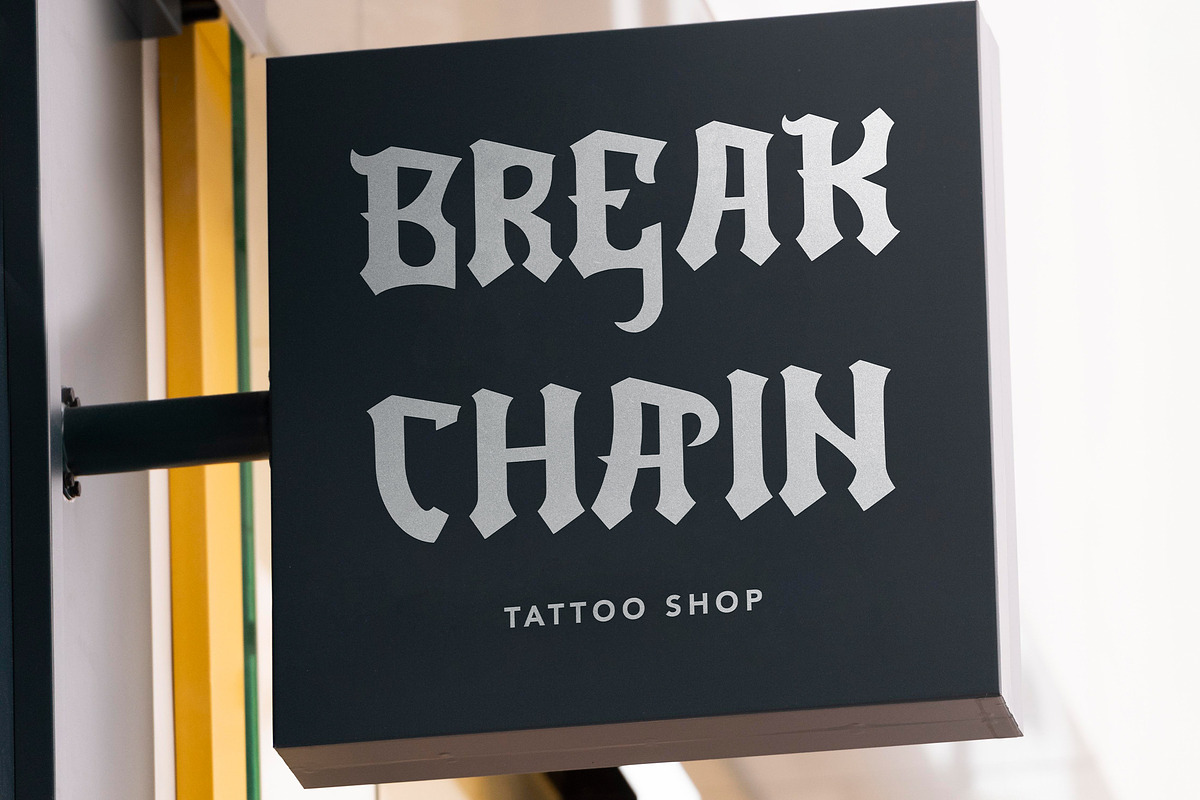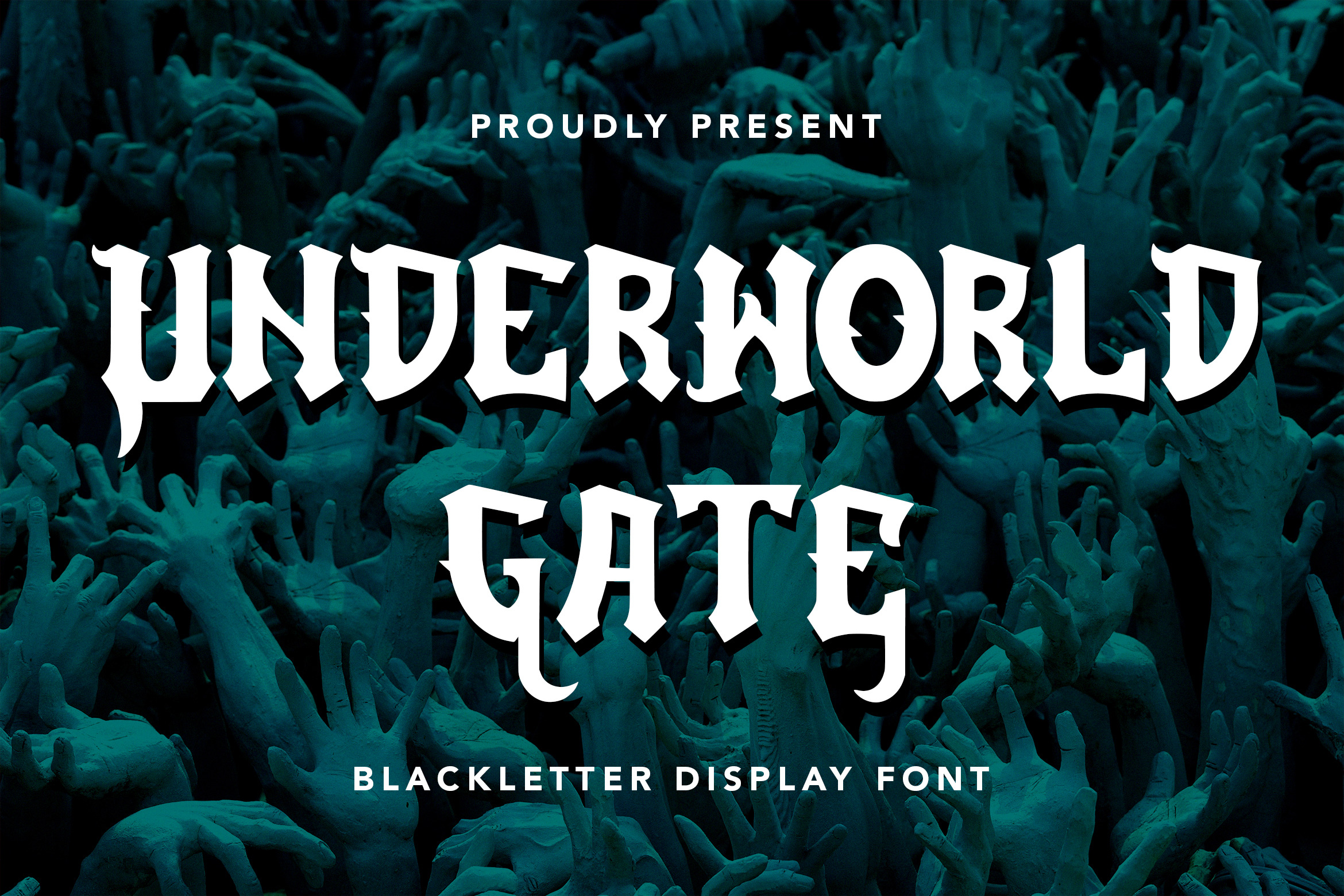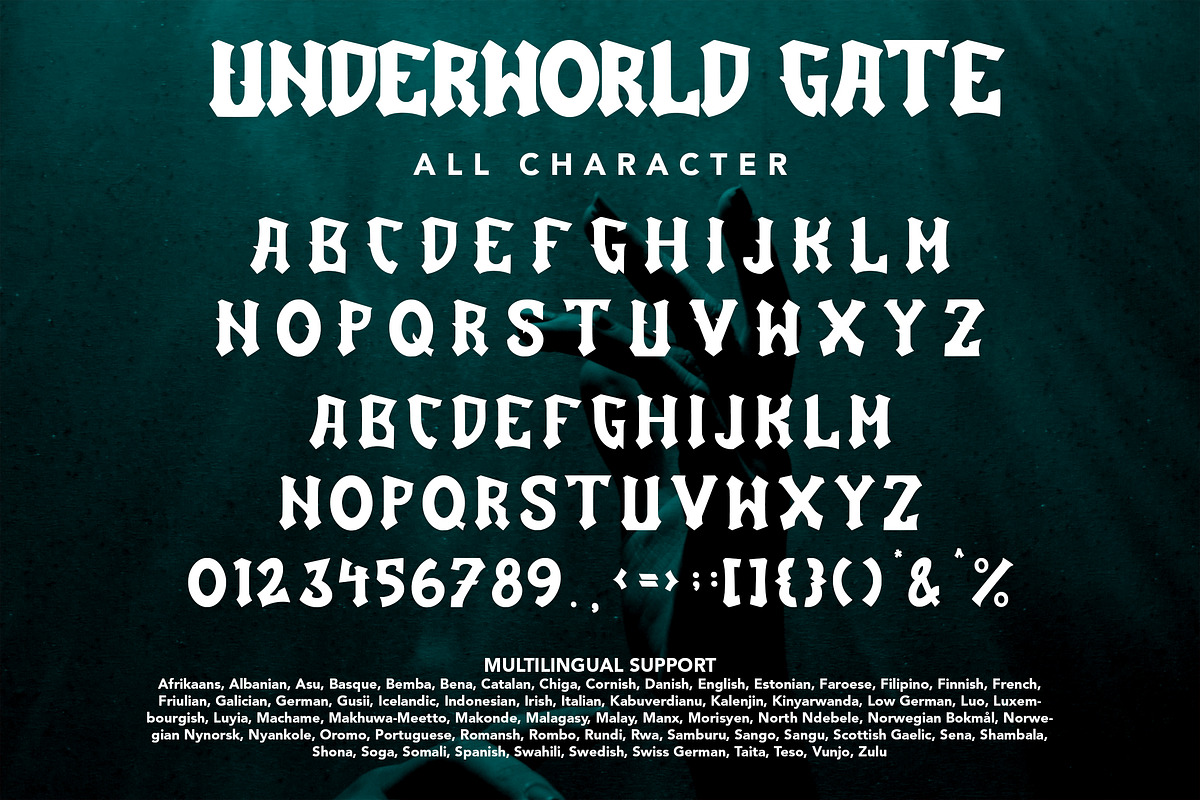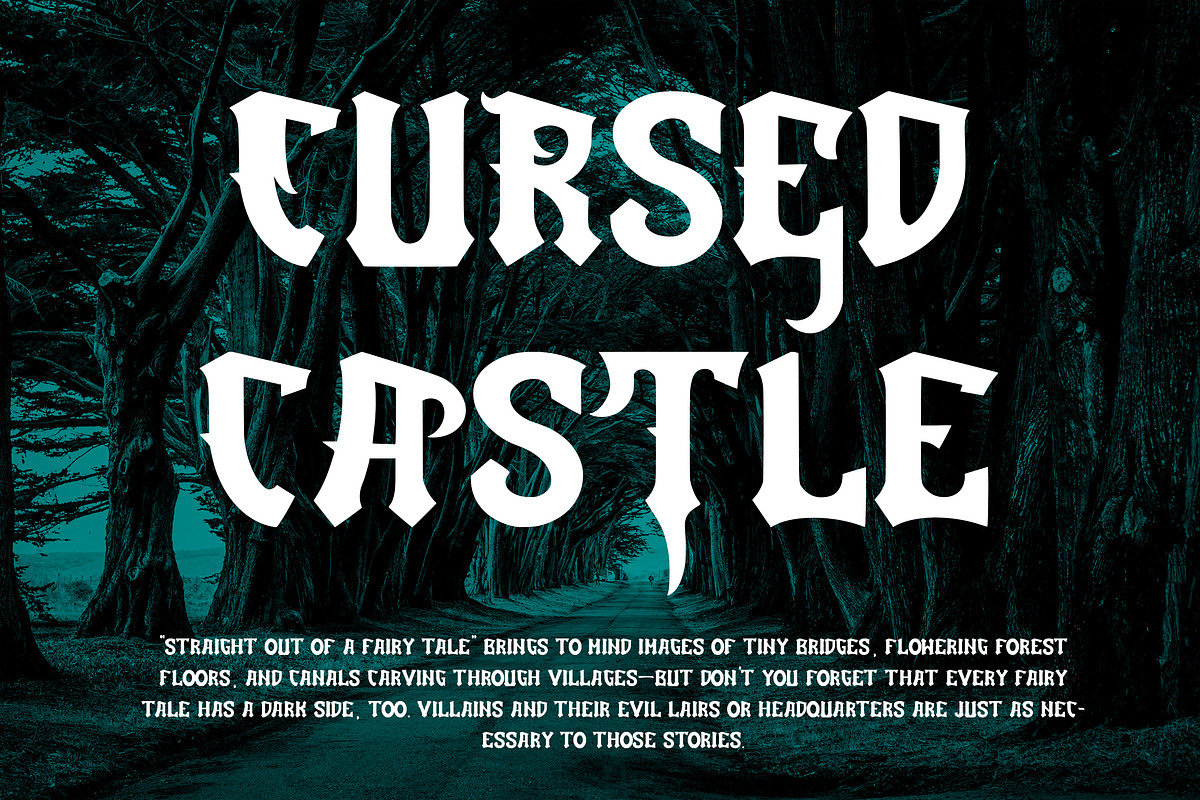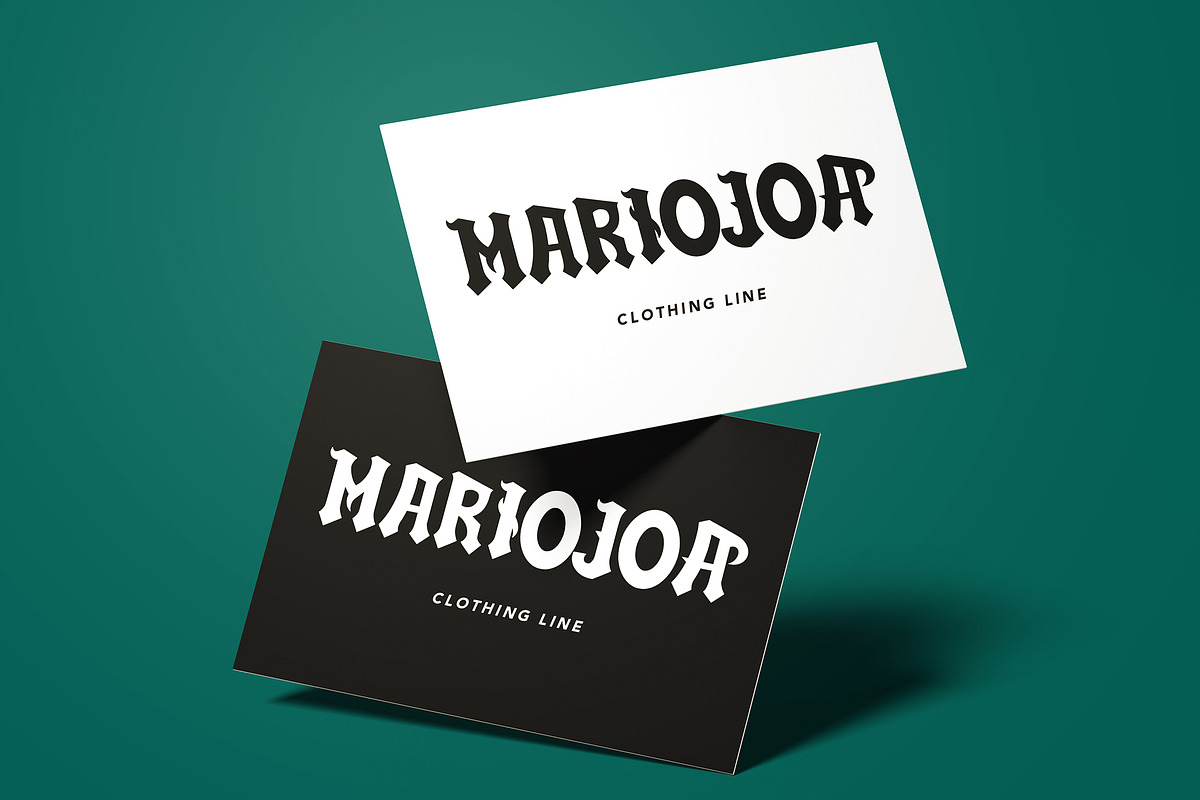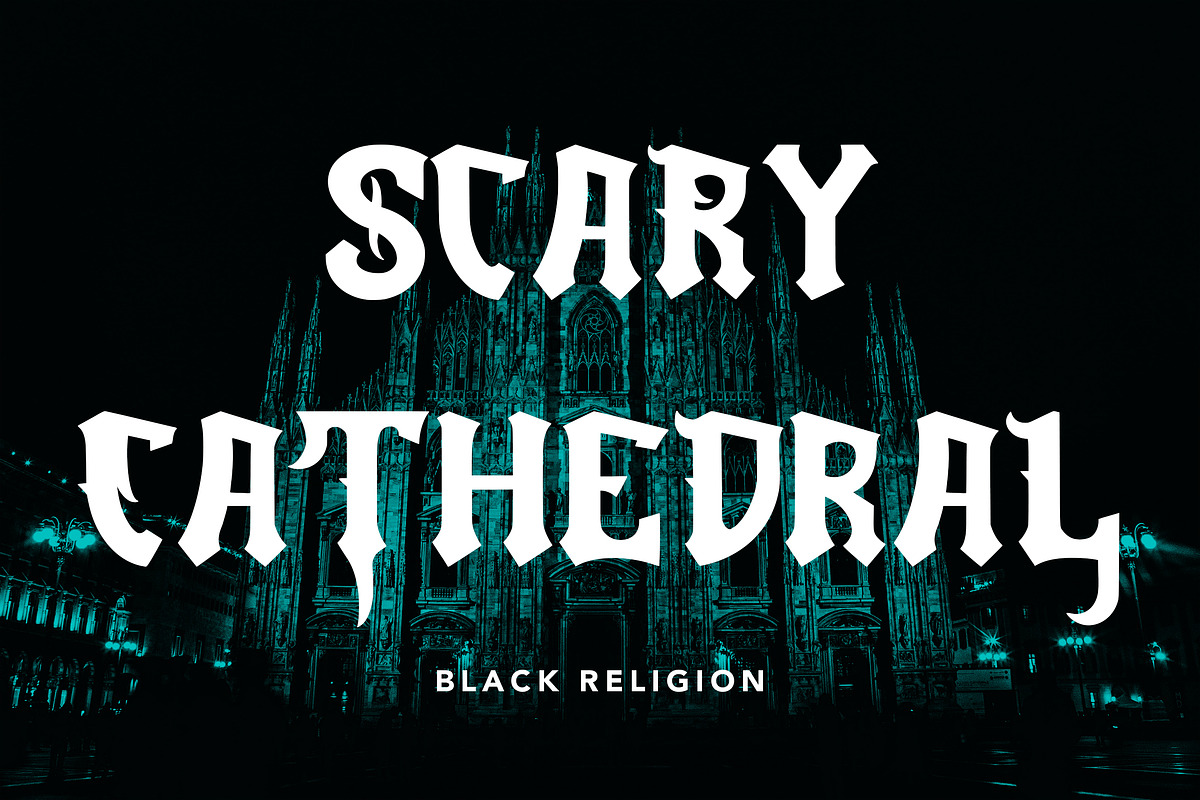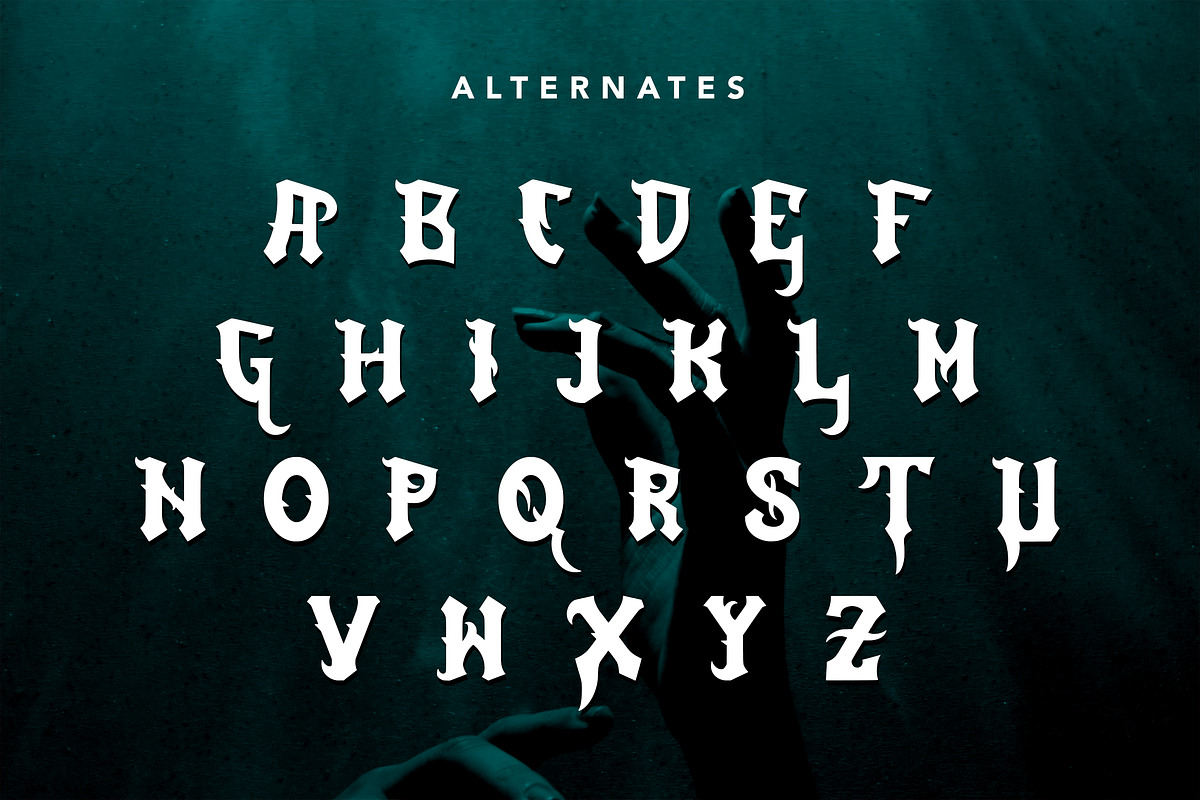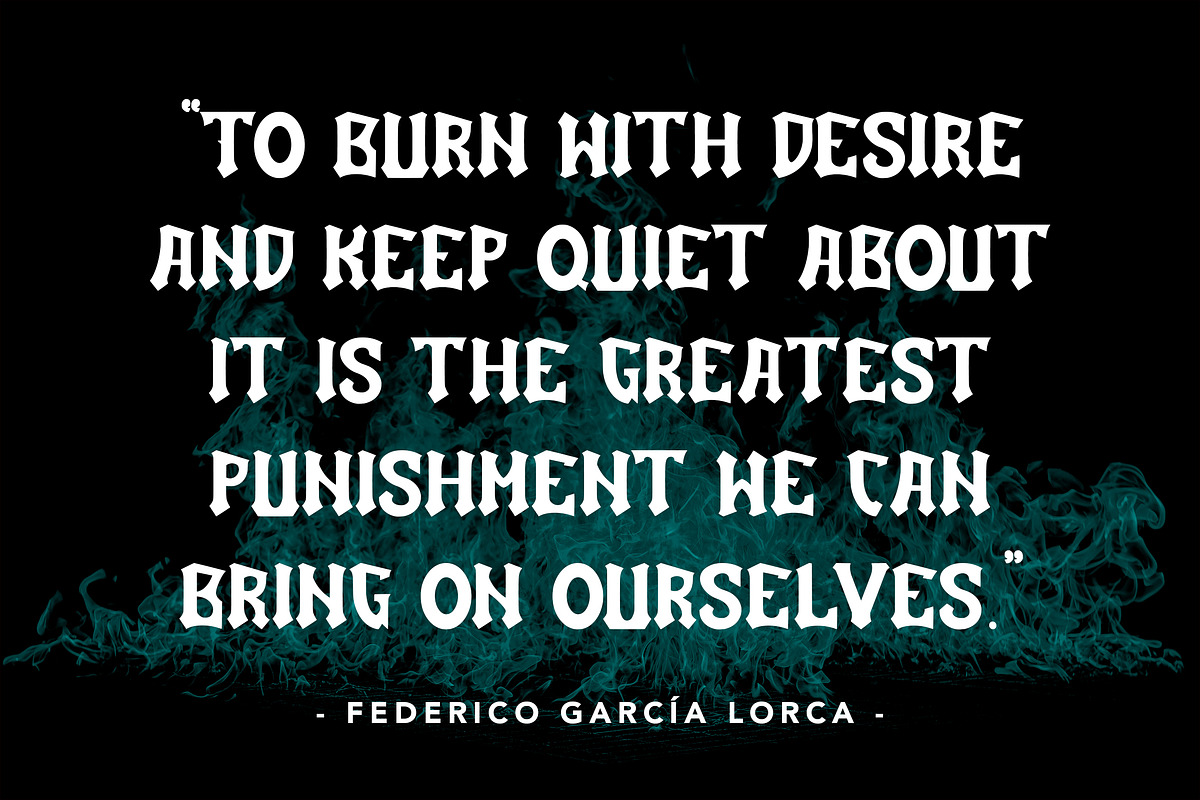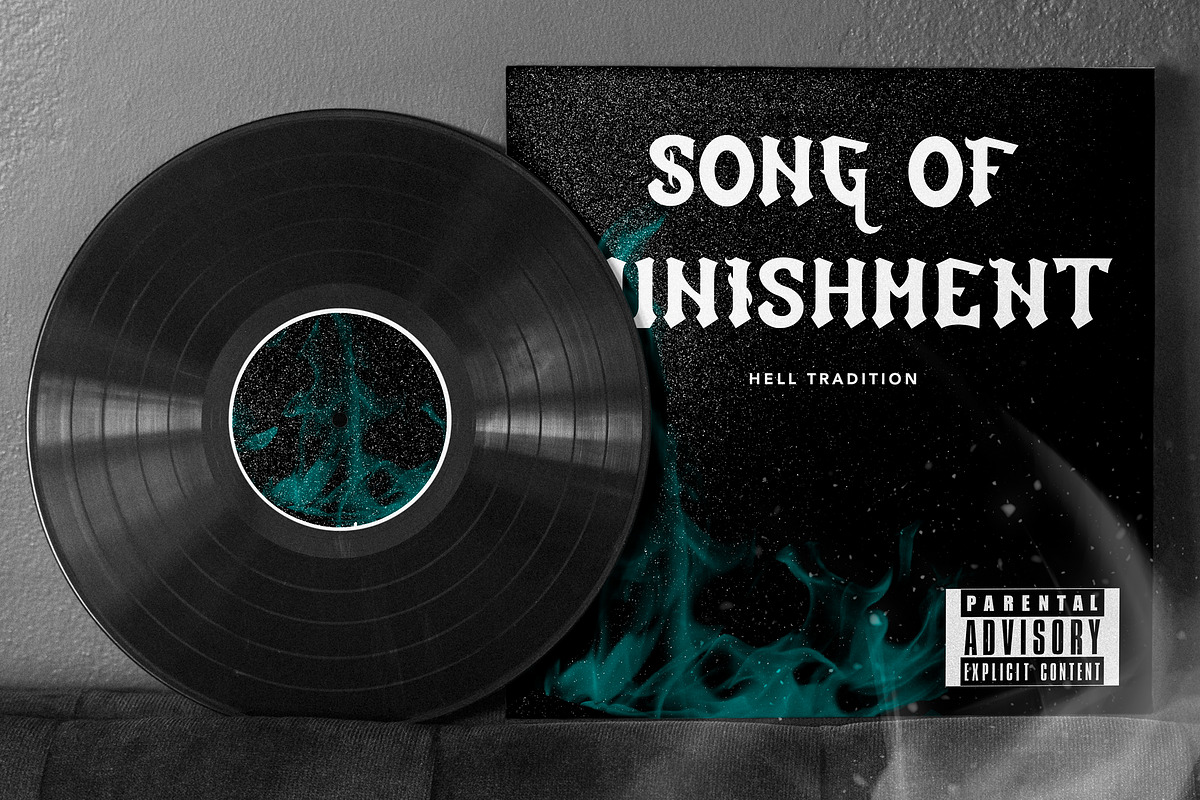
UnderworldGate - Blackletter Font
UnderworldGate - Blackletter Display Font contains a lowercase, uppercase, symbol, and also supports multi-language. There’s a lot of ligature in this font. UnderworldGate - Blackletter Display Font also comes with ligatures, stylistic alternates and many more. this font suitable for fashion, branding, catalog and other design that you want.